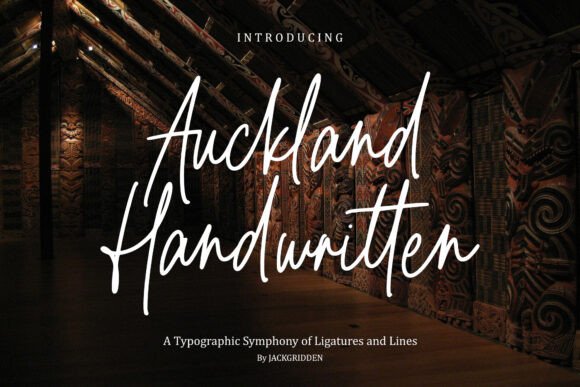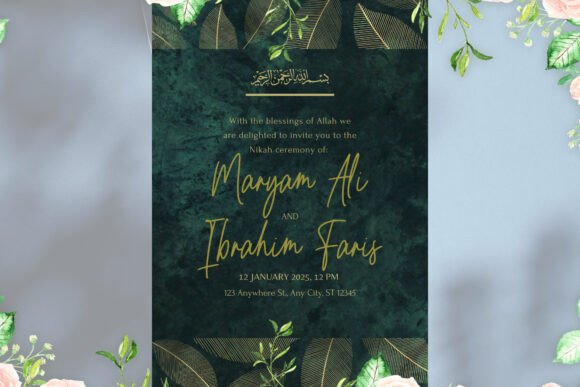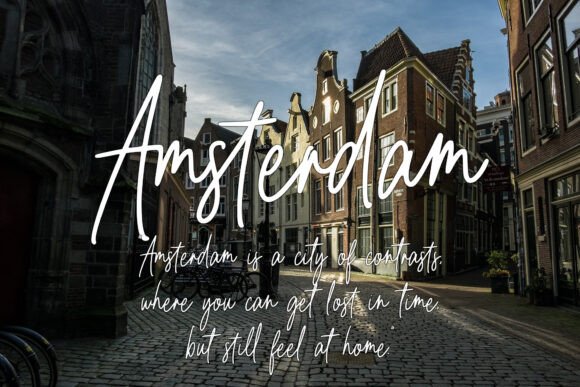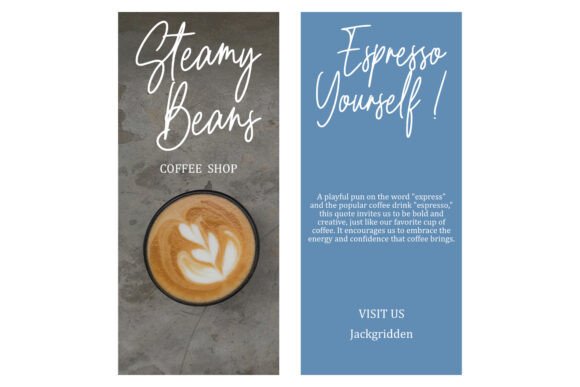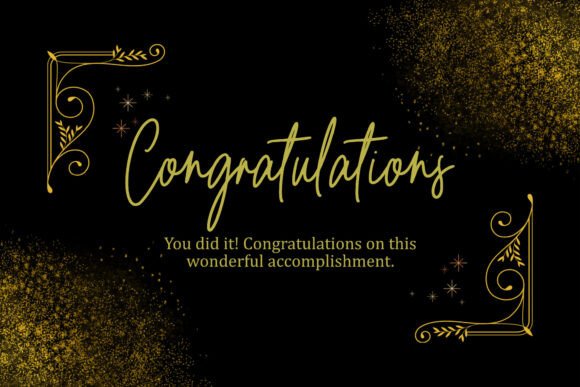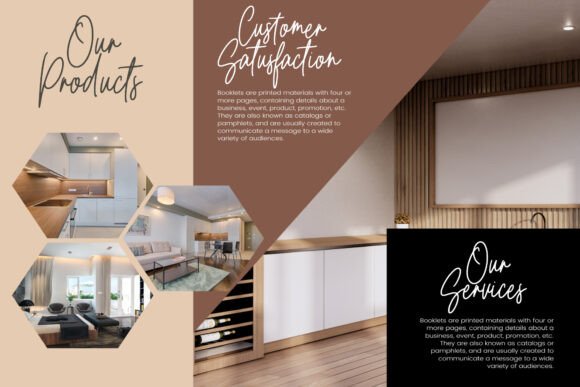
Auckland Handwritten Font: Elevate Your Designs with a Personal Touch
In the world of typography, a well-crafted font can make all the difference in bringing your design projects to life. If you’re on the hunt for a font that adds a personal touch to your creations, look no further than the Auckland Handwritten Font. This beautifully designed monoline font is perfect for infusing your work with a friendly, stylish element, making it an excellent choice for both professional and casual designs.
What Sets Auckland Handwritten Apart
Auckland Handwritten boasts a unique, flowing handwritten style that sets it apart from other fonts. Its smooth and consistent lines create a polished, yet casual feel, making it versatile enough to be used in a wide range of design projects. Whether you’re working on invitations, branding, social media graphics, or packaging, this font is sure to add a touch of elegance and sophistication.
Key Features of Auckland Handwritten Font
- Monoline Design: The font features clean, uniform strokes that give it a polished, yet casual feel. This design makes it perfect for creating modern and sleek designs.
- 180 Ligatures: Auckland Handwritten includes a wide variety of natural letter combinations, with 180 carefully crafted ligatures that enhance the legibility and beauty of your design. These ligatures ensure natural letter connections, providing a seamless flow and authenticity to your text.
- Perfect for: This versatile font is ideal for a range of design projects, including branding, stationery, logos, invitations, packaging, social media posts, and more.
- Multi-Language Support: The font includes support for multiple languages, making it a great choice for designers working on international projects.
The Benefits of Using Auckland Handwritten Font
So, why choose Auckland Handwritten Font for your design projects? Here are just a few benefits of using this beautifully crafted font:
- Adds a Personal Touch: The font’s unique, flowing handwritten style adds a friendly, stylish element to any project, making it perfect for designs that require a personal touch.
- Enhances Legibility: The 180 ligatures included in the font enhance the legibility and beauty of your design, making it easier for readers to engage with your content.
- Versatile: Auckland Handwritten Font is versatile enough to be used in a wide range of design projects, from professional branding to casual social media graphics.
Tips for Using Auckland Handwritten Font
To get the most out of Auckland Handwritten Font, here are a few tips to keep in mind:
- Experiment with Ligatures: Take advantage of the font’s 180 ligatures to add natural letter connections to your text. This will help to create a seamless flow and authenticity in your design.
- Play with Font Sizes: Auckland Handwritten Font looks great in a range of font sizes, from large headings to smaller body text. Experiment with different font sizes to find the perfect fit for your design.
- Pair with Other Fonts: The font pairs well with other sans-serif fonts, making it easy to create a cohesive look for your design projects.
In conclusion, Auckland Handwritten Font is a beautifully crafted monoline font that brings a personal touch to your design projects. With its unique, flowing handwritten style, smooth and consistent lines, and 180 carefully crafted ligatures, this font is perfect for both professional and casual designs. Whether you’re working on invitations, branding, social media graphics, or packaging, Auckland Handwritten Font is a versatile choice that’s sure to elevate your designs.